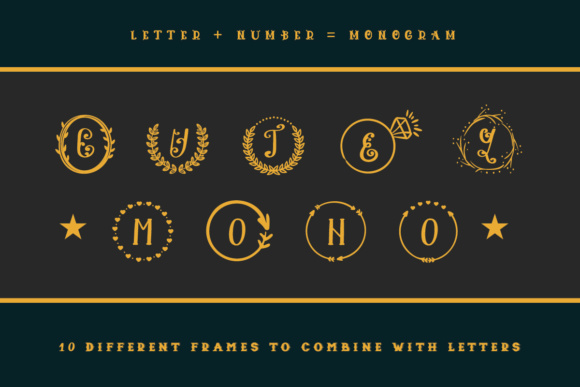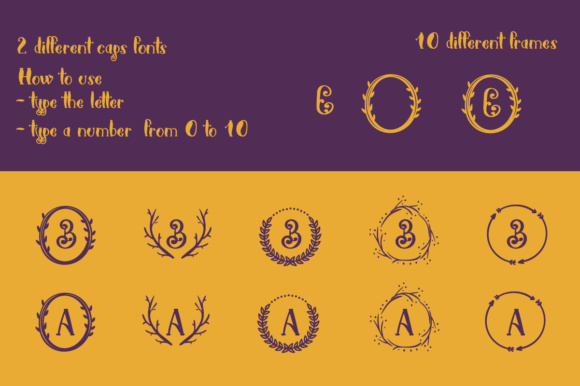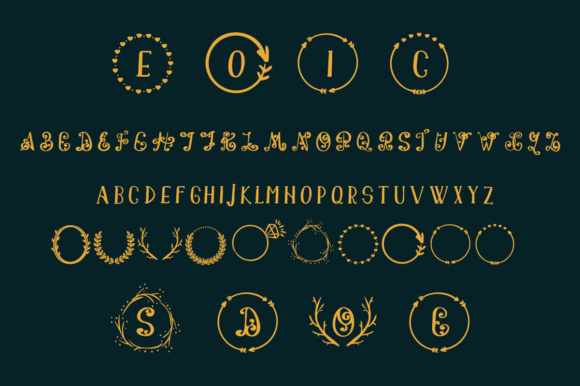
Cutey Mono Font
About Cutey Mono Font
The Cutey Mono Font is a stunning handwritten font, that comes including monogram frames.
Cutey Mono is very legible on its own, but the real power is when you combine it and use the full capabilities of this monogram font. Simply type a letter and a number (like a1), and the letter will be placed perfectly centered inside a circular monogram frame.